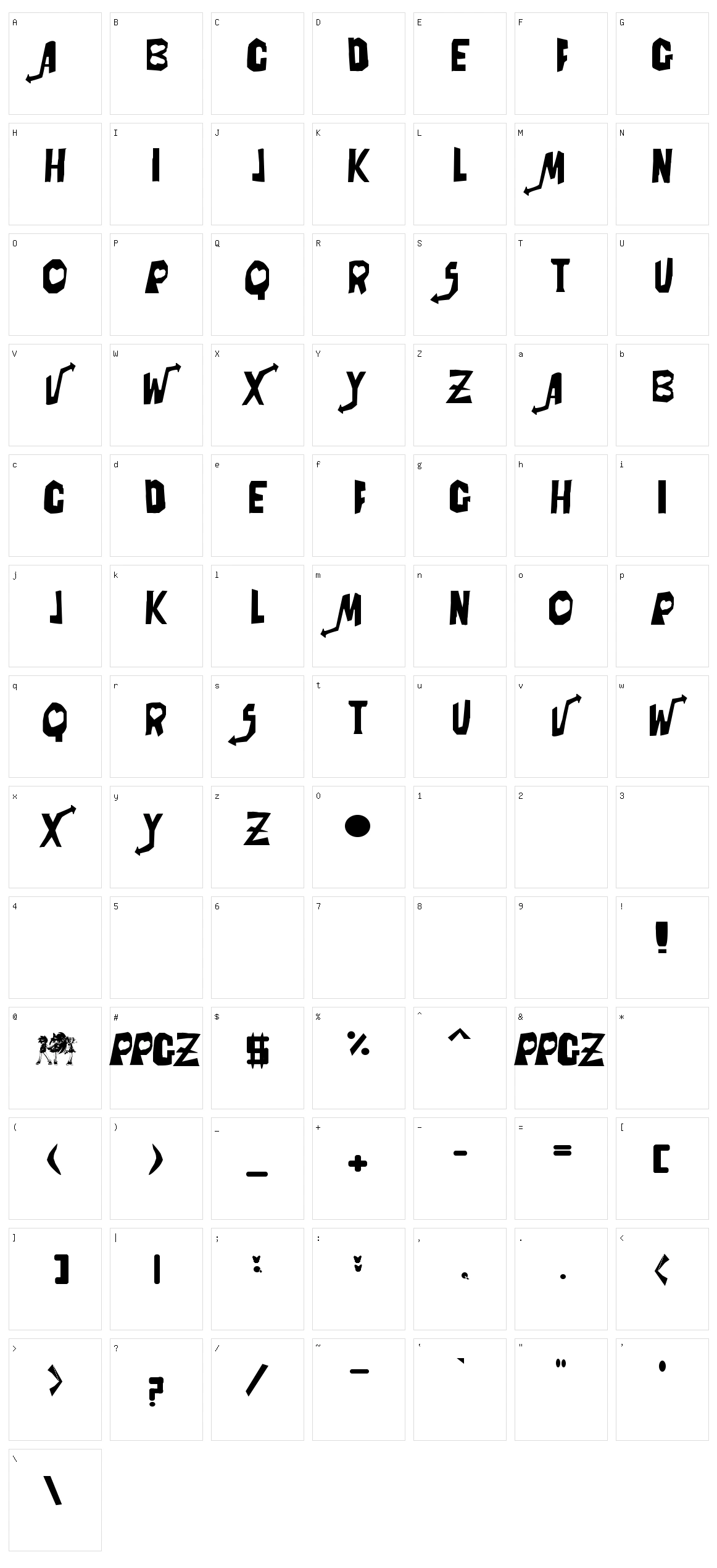
The free font Powerpuff Girls Z is carefully designed by artRAVE Editions, showcasing a thoughtful balance of creativity and usability and falls under the Cartoon font style. When you download the ZIP file, it contains only 15.33 KB of font files, making it lightweight and quick to download. Please review the license details below to understand permitted usage and distribution rights. If license information is not available, we recommend using this font for personal projects only or contacting the author directly for commercial usage permissions.